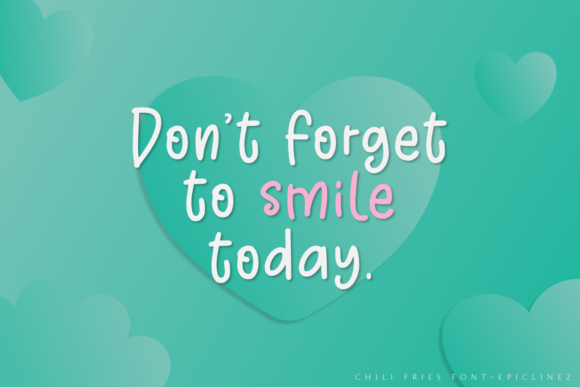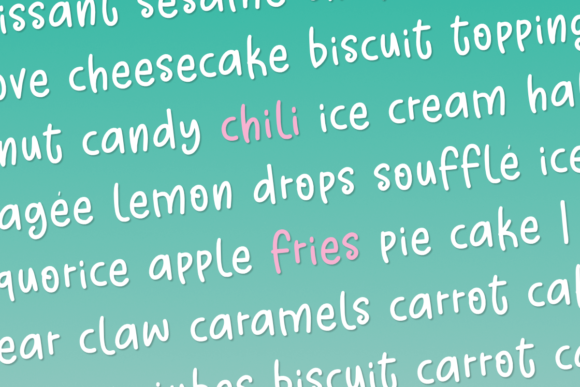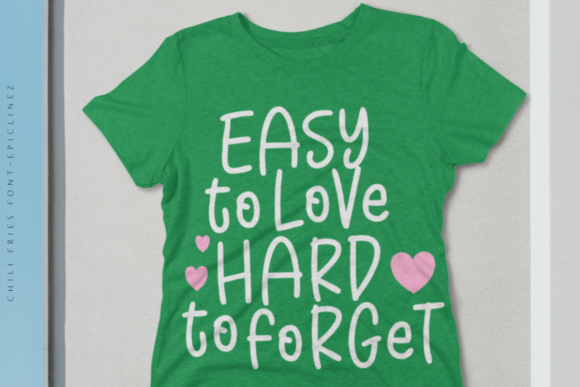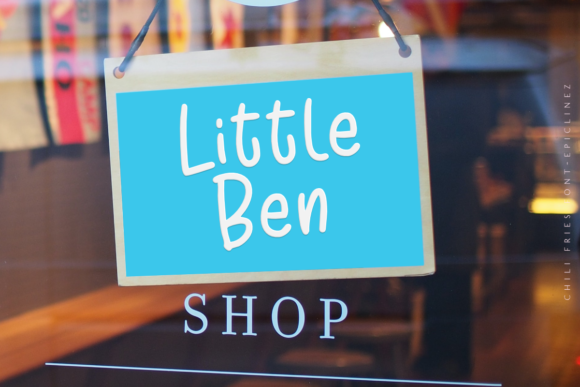
Introduction to Chili Fries Font
Chili Fries is a cute, simple and natural handwritten font.
Whether you use it for cartoon related designs, children games or just any creation that requires a lovely touch, this font will be an amazing choice .
Key Features of Chili Fries Font